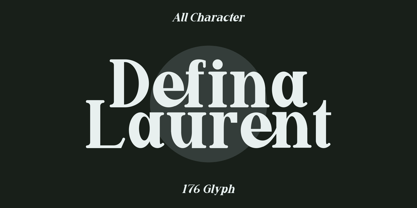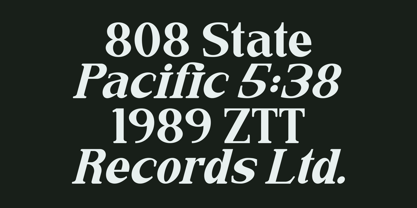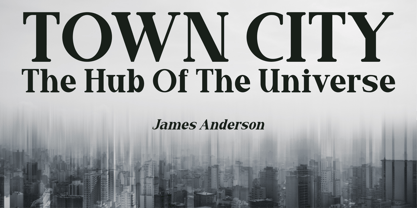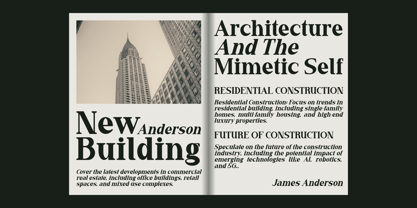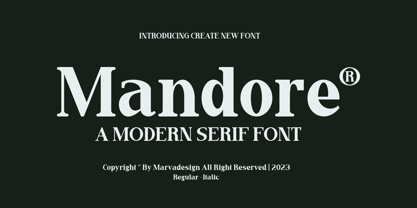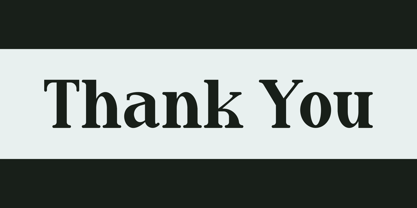
Mandore
by Marvadesign
The Mandore Font Family was designed by Febrie Setiawan and published by Marvadesign. Mandore contains 2 styles and family package options.
Introducing a new font Mandore is a modern serif font that embodies a clean and timeless aesthetic. Its classic design exudes sophistication and professionalism, making it an ideal choice for a wide range of applications.
Mandore is particularly well-suited for corporate branding, posters, magazines, books, movie titles, and more. Its refined style offers a perfect balance of modernity and elegance, ensuring it seamlessly enhances both contemporary and traditional design projects.